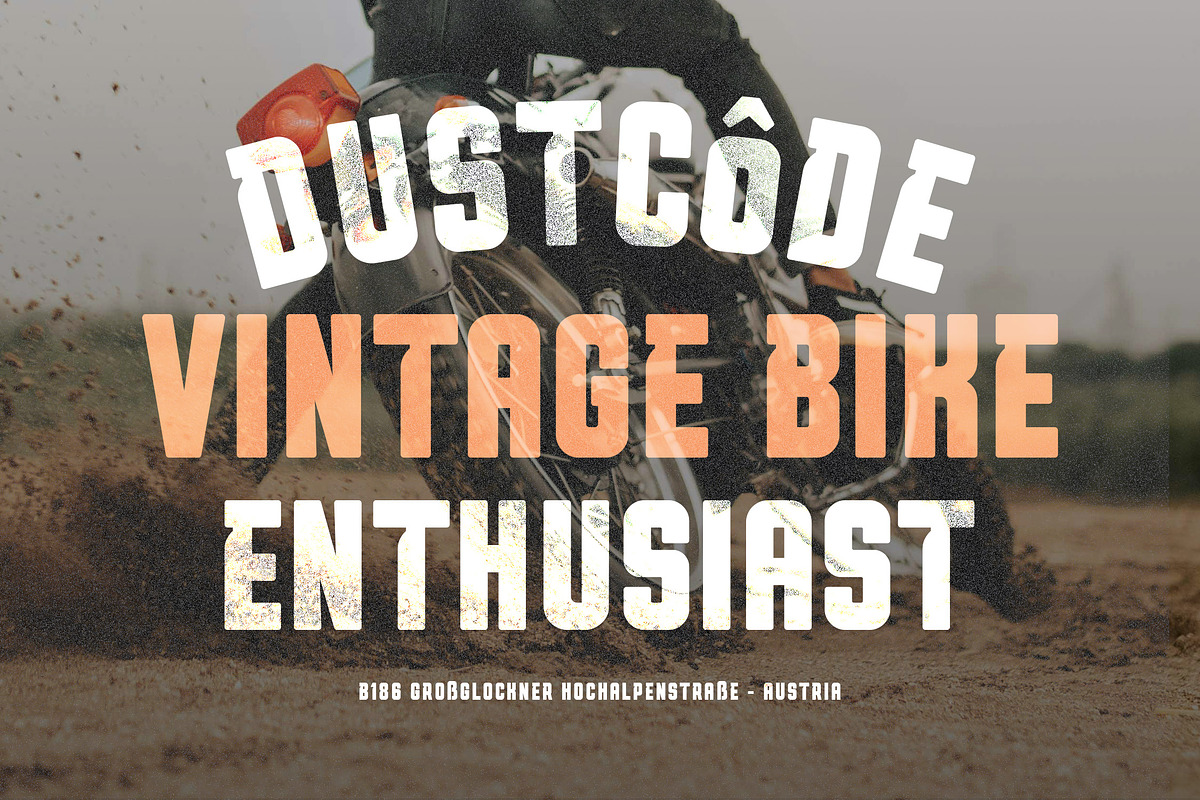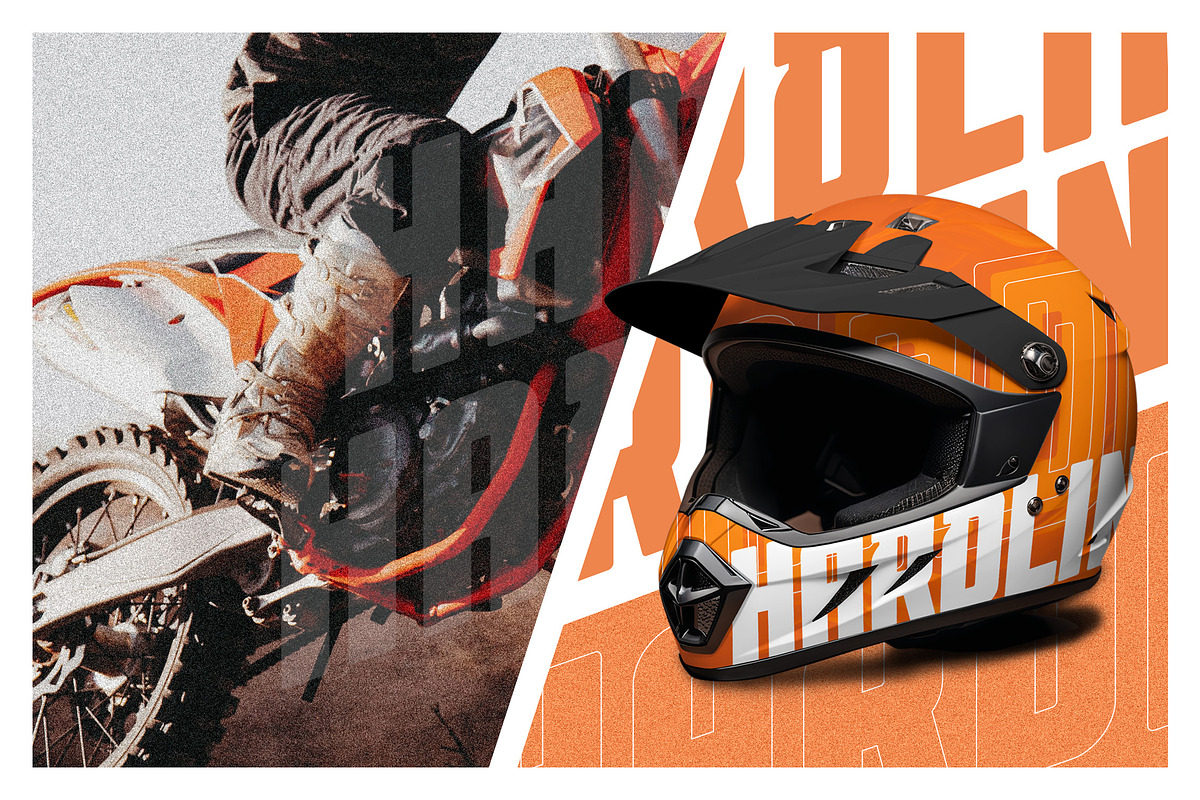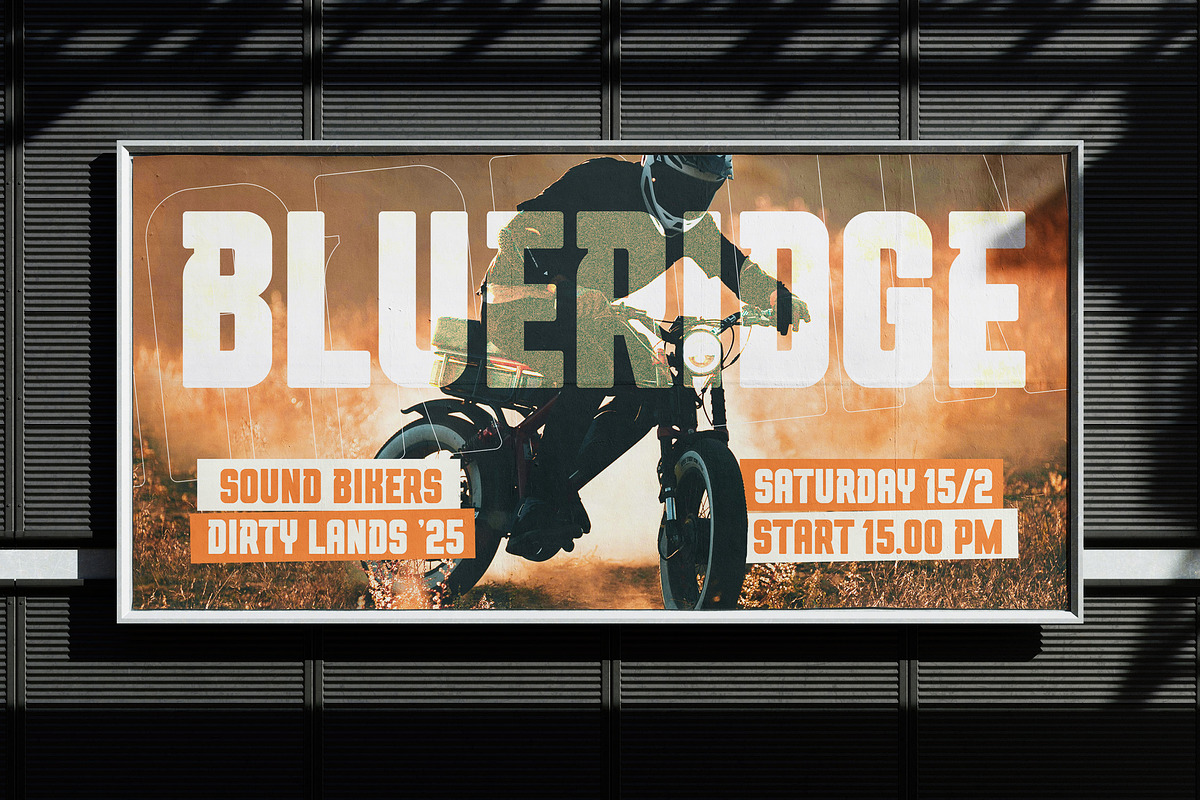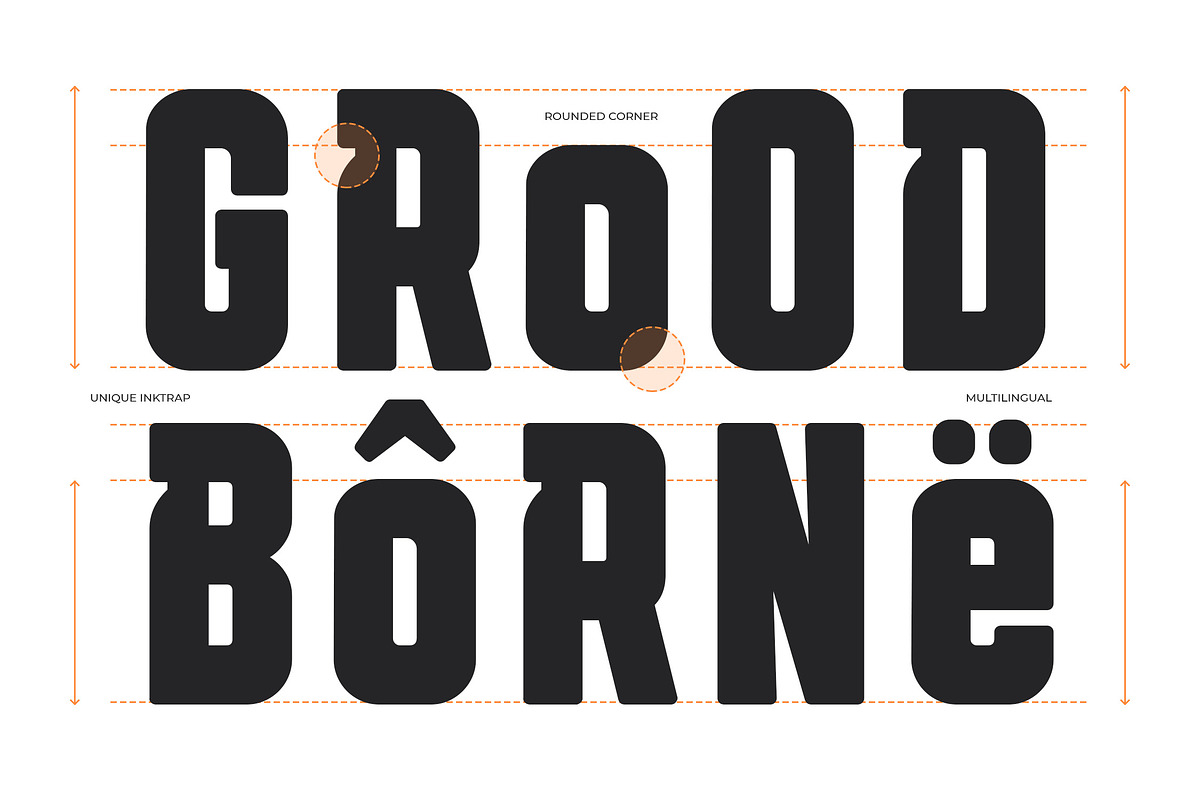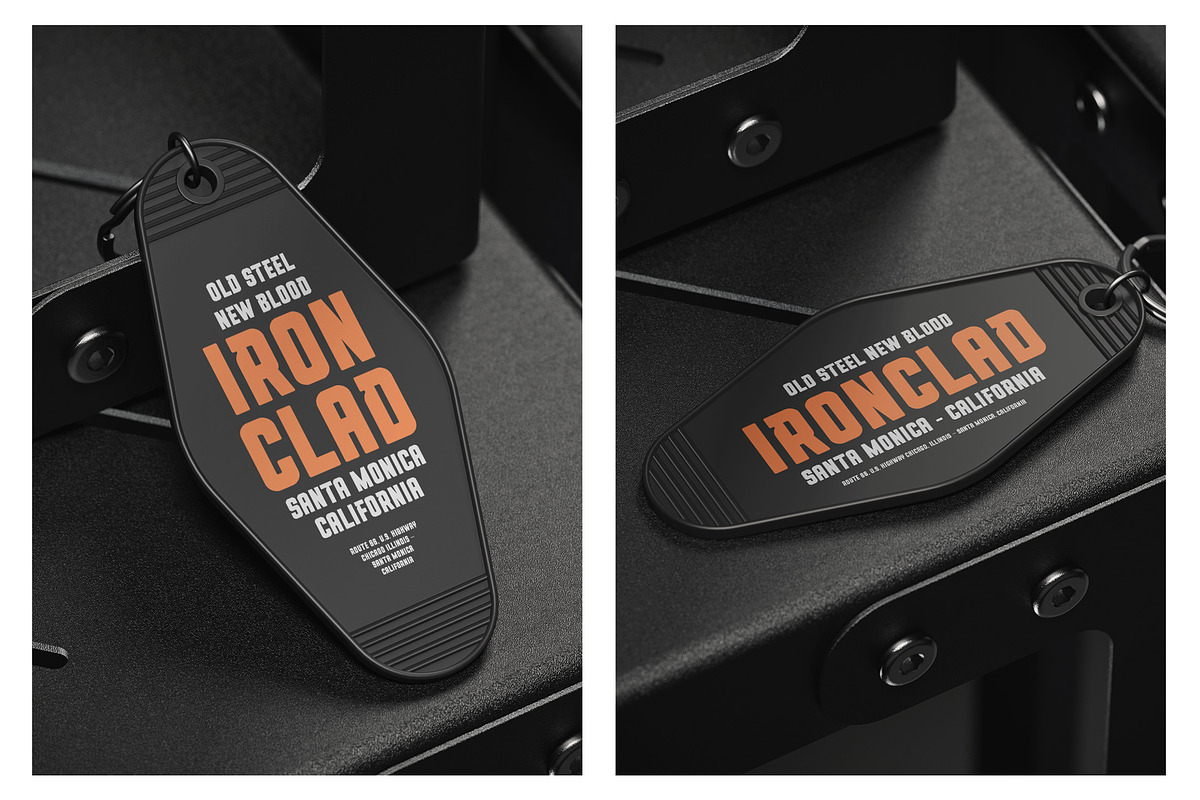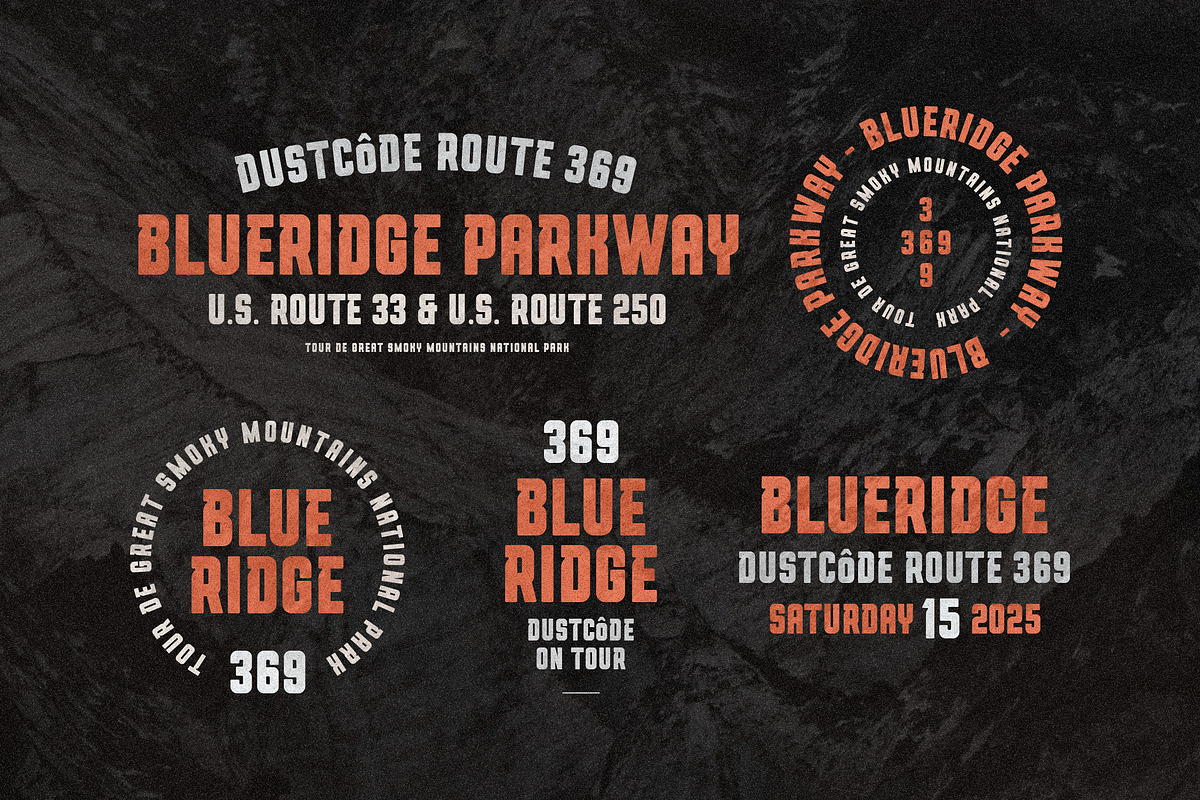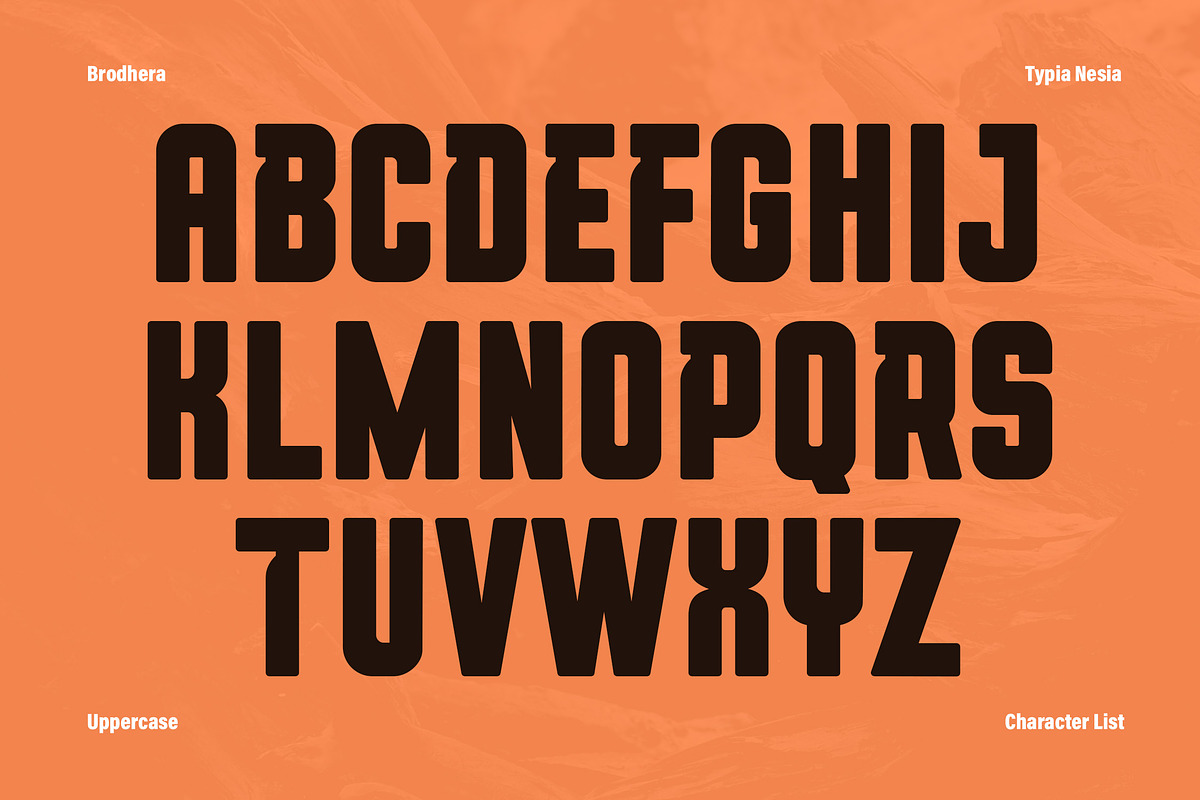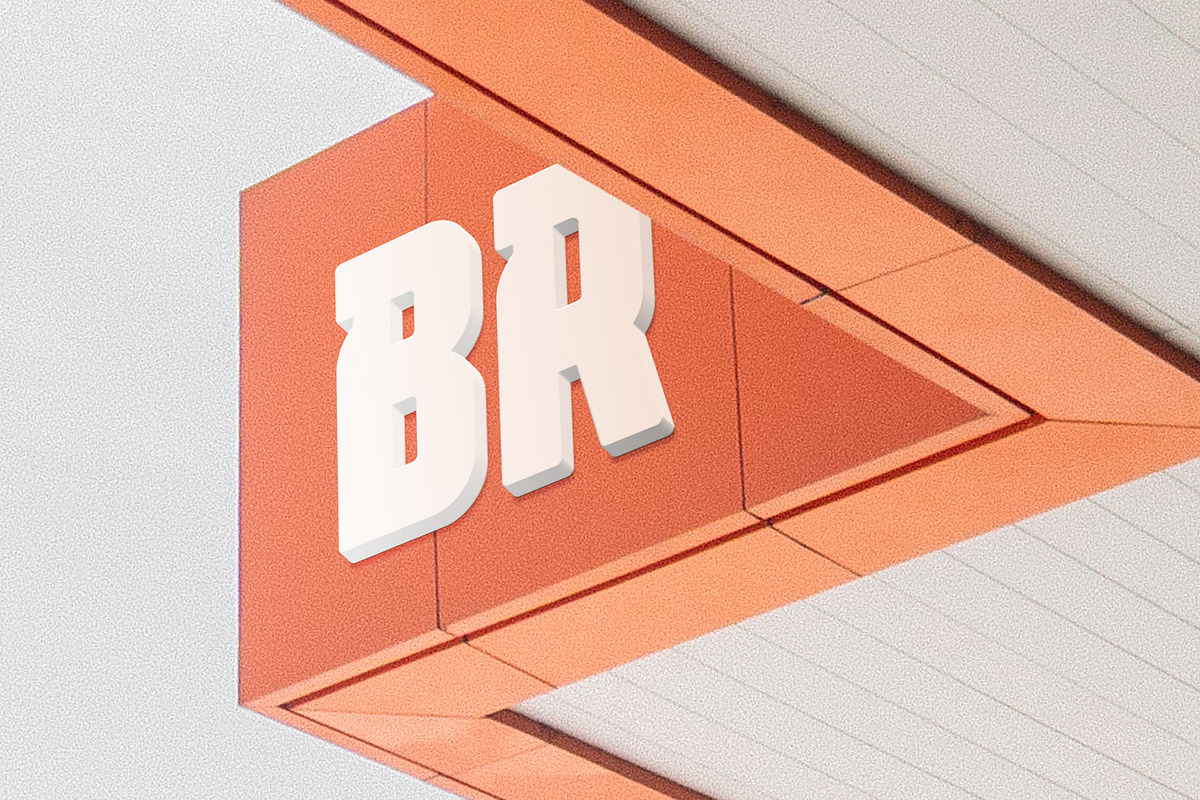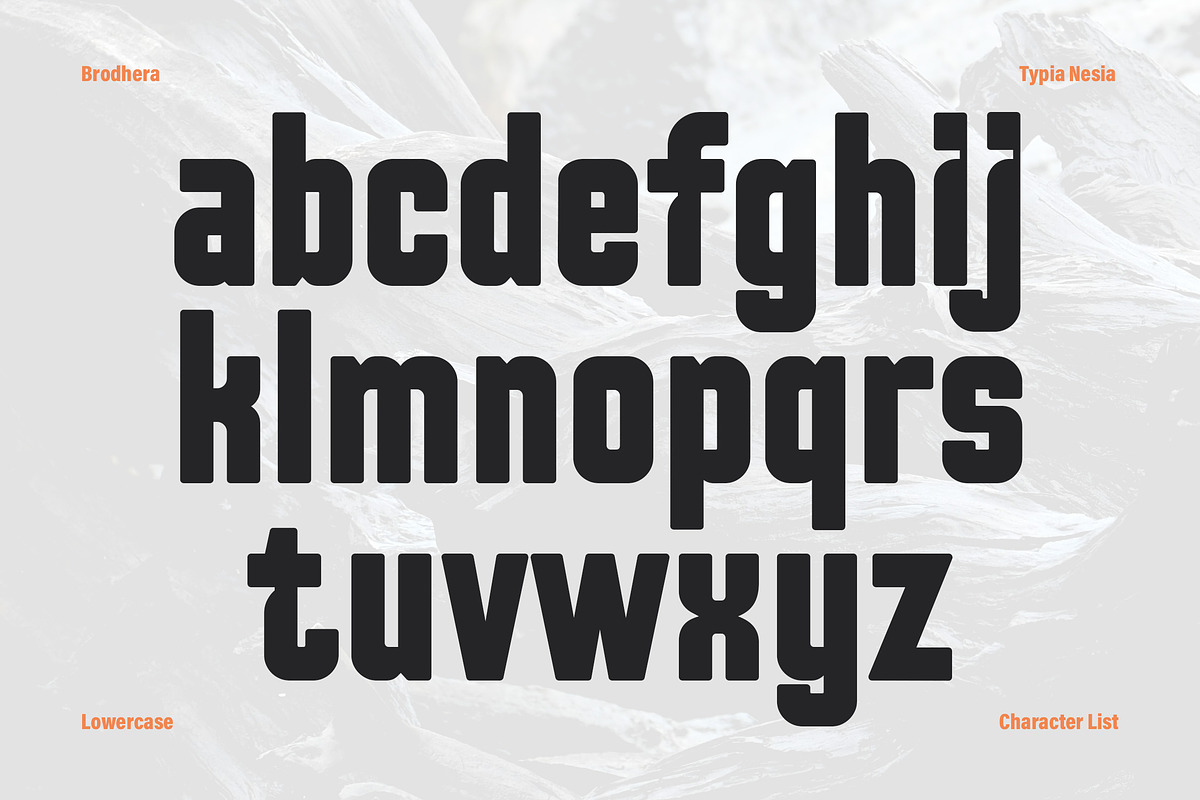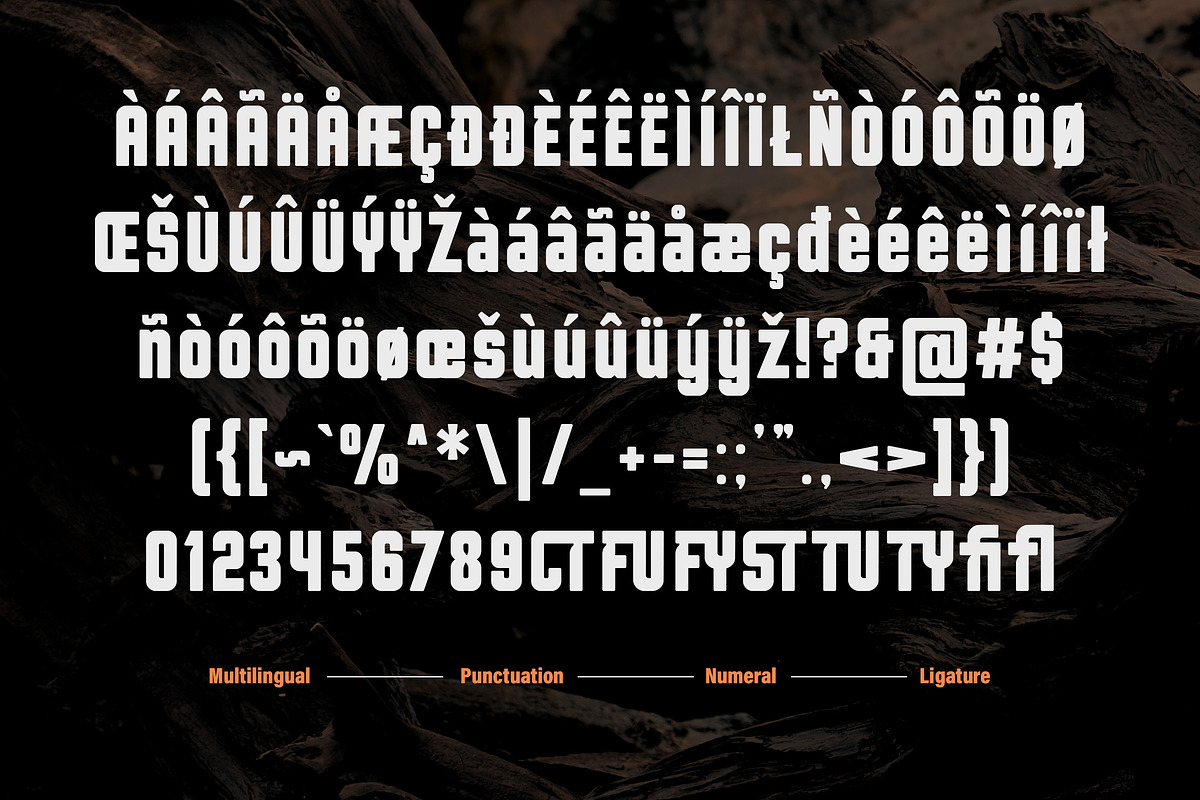
Brodhera - Bold Condensed Sans Font
Brodhera - Classic Vintage Rounded Bold Condensed Sans Font - Urban Sport Game Display Font
Brodhera is a Classic Vintage Rounded Bold Condensed Sans Font that delivers a commanding presence, perfect for high-impact display use. This tall and unapologetically bold typeface combines a modern, urban aesthetic with a rugged, wild feel, making it an excellent choice for logo, apparel, and branding projects in the sport, game, outdoor adventure, tech industries and any projects that require modern and bold. Its condensed structure ensures maximum visibility, while the subtly rounded corners maintain legibility and a contemporary edge, ensuring your message is strong, clear, and unforgettable.